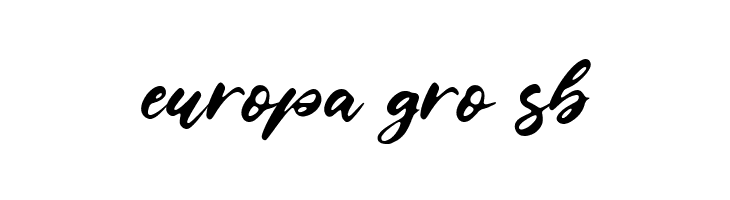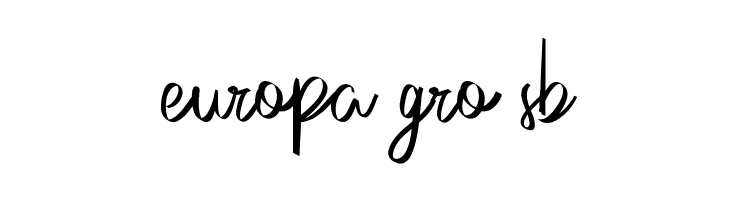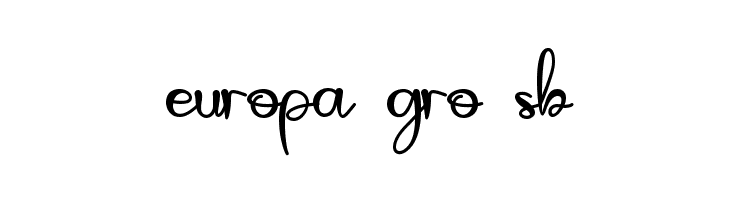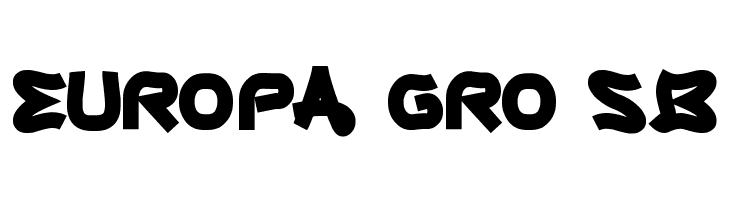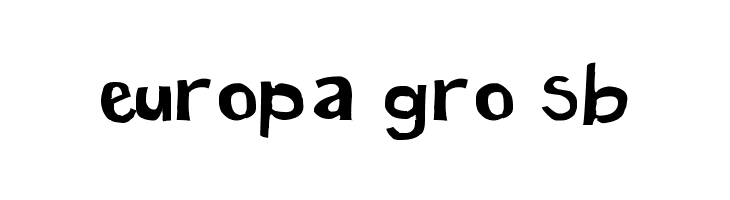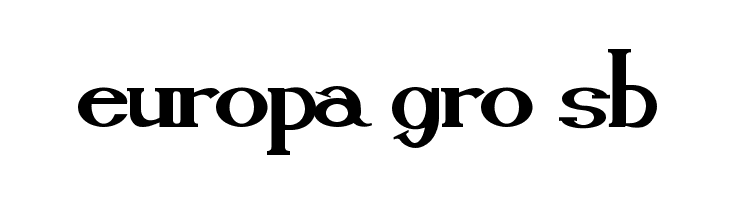
• Quinley
A lively, cursive font with interconnected letters and medium contrast, perfect for elegant projects.
• Qut'n'torn
A bold, distressed font with geometric shapes and rough edges.
• Radens Jockie
A playful, handwritten-style font with bold, slightly condensed characters.
• Radhetya
Bold, energetic handwritten script font.
• Radiant Signature
A graceful script font with fluid, connected strokes, ideal for personal and elegant designs.
• Ragnarok
• Rahayu Script
A flowing script font with elegant, connected strokes and a handwritten feel.
• Rainbow Christmas - Personal Us
A whimsical, cursive script font with decorative swirls and loops.
• Rainory
A bold, playful handwritten font with a casual and friendly style.
• Raliangi
A lively and elegant handwritten script with fluid, cursive strokes.
• Rampage - Free for personal use
A dynamic, brush-style font with expressive, hand-drawn strokes.
• Randhu
A bold, dynamic script font with a casual, handwritten style.
• RANDY CANDY
A playful handwritten font with a casual and friendly style.
• Ranked Hockey
A playful and bold font with rounded strokes and a lively appearance.
• Rankfine Personal Use
A sophisticated script font with elegant, flowing letterforms and high contrast strokes.
• Raslani Ancient Script
• Raslani Destroyed Souls
• Raslani hO oH!
• Raspberry
A playful, bold script font with flowing, energetic letterforms.
• Rastedral
A lively, expressive handwritten font with dynamic strokes and a playful elegance.
• Rastedral Italic
An elegant, flowing script font with a dynamic, cursive style.
• Raynoss
A bold, cursive script font with dynamic and fluid strokes.
• Raynoss Italic